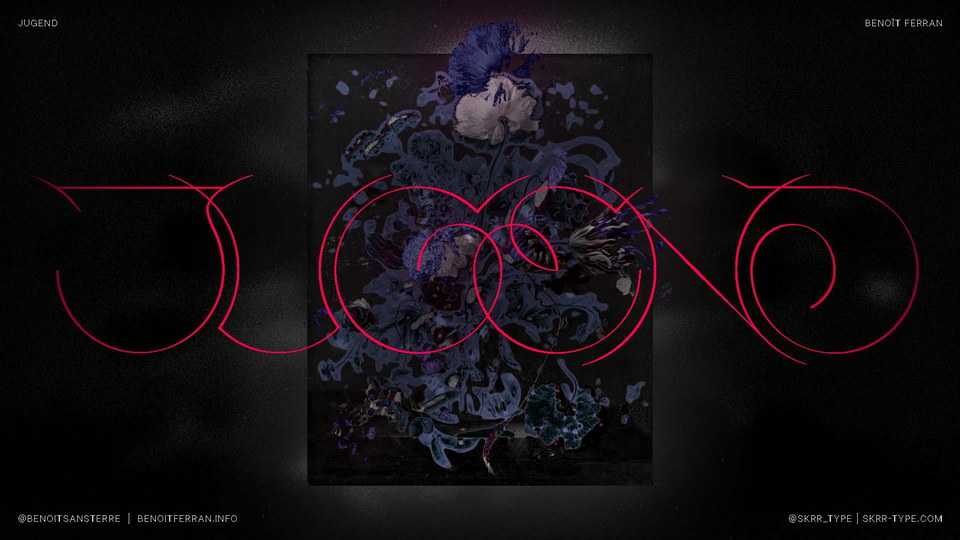
Download Jugend typeface, a display monospace font family taking its roots in a lettering from the Jugendstil/Art-nouveau magazine of the same name, originally published in 1896.
Designer: Benoît Ferran